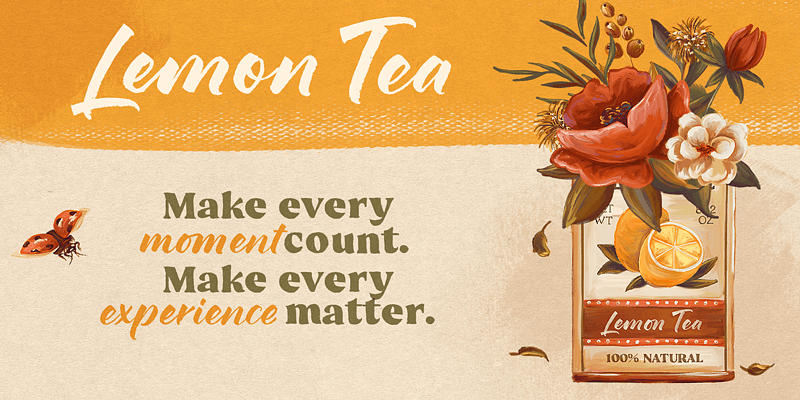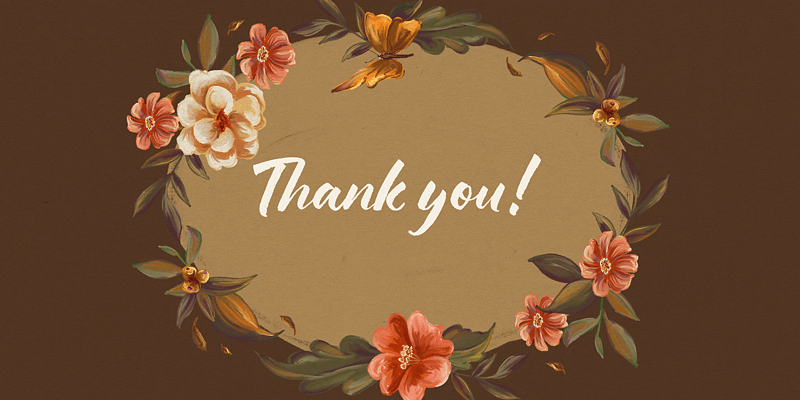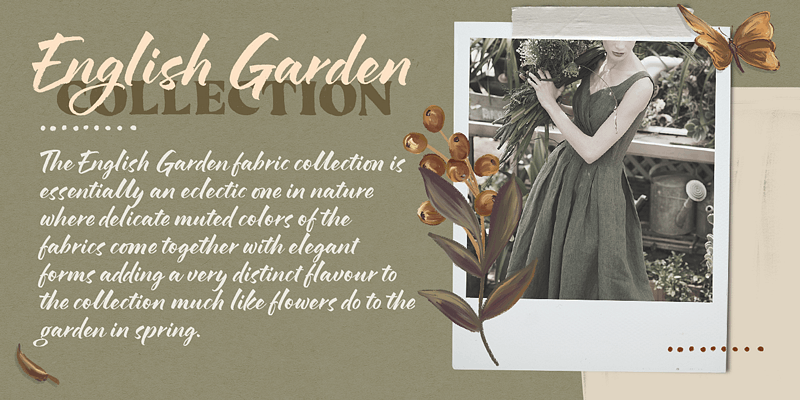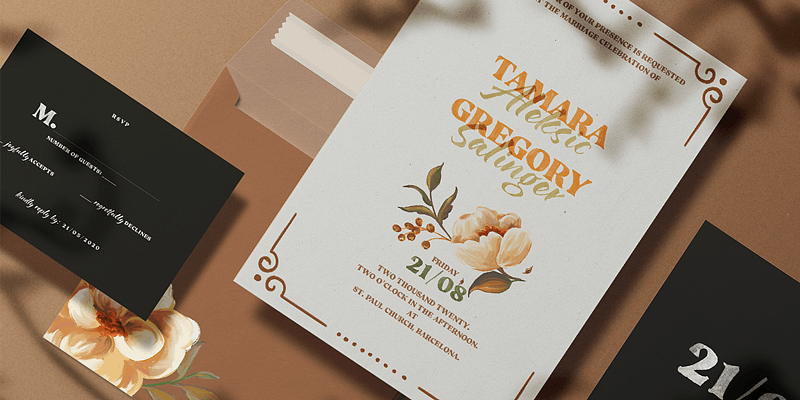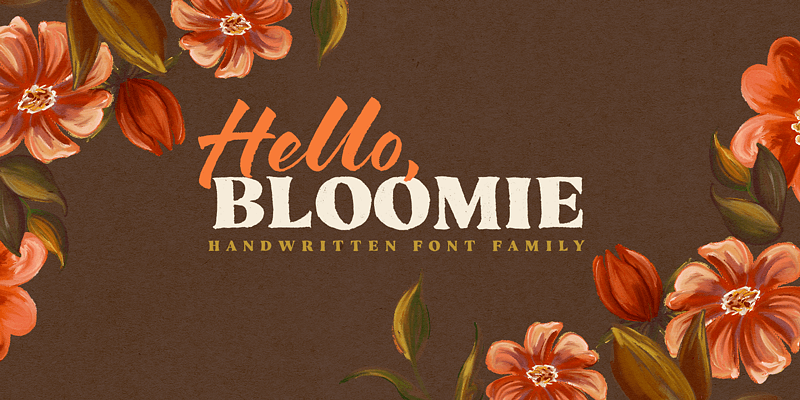
My Creative Land
My Creative Land is home to the gorgeously handcrafted typefaces of Elena Genova. With an unwavering dedication to the art of letterforms, the faces transcend the ordinary and convey emotion, depth, and uniqueness in design. Each family is carefully handcrafted and often draws direct inspiration from the beauty one finds in calligraphy and lettering. Discerning designers will know that My Creative Land has fonts ready to infuse a certain je ne sais quoi to amplify their ideas above the rest.